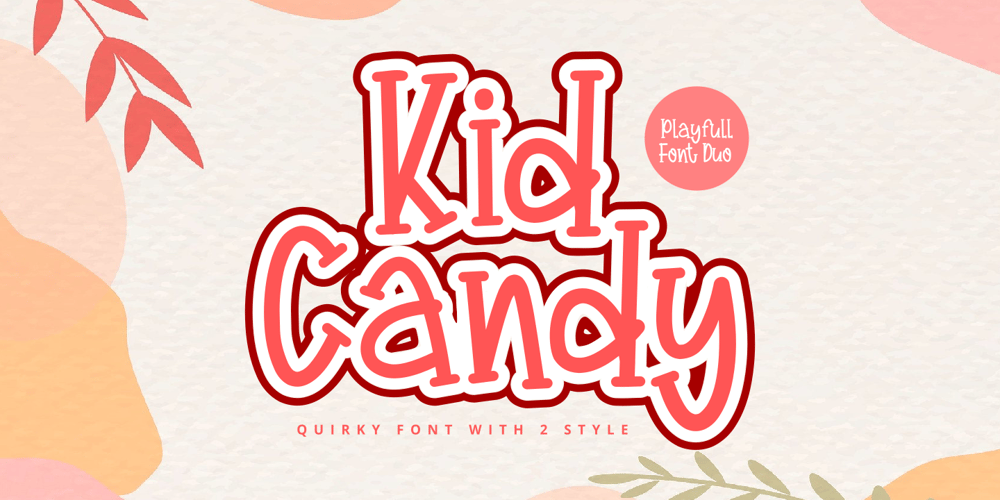
Kid Candy
Kid Candy font
Kid Candy Font Family was designed by Zeenesia Studio and published by Zeenesia Studio. Kid Candy contains 2 styles and family package options. Kid Candy is a sweet and friendly handwritten font. Kid Candy is a serif and sans font that can meet your design needs with funny and cheerful themes You can use it in your various designs, clothes, logos, posters, invitations, crafts, and more.Its natural and unique style makes it incredibly fitting to a large pool of designs. The only limit is your imagination!